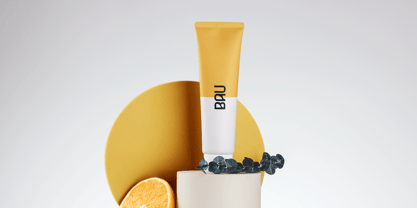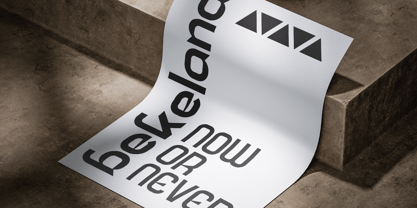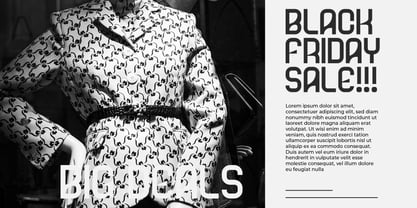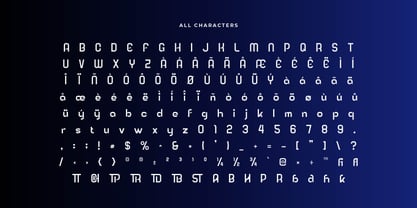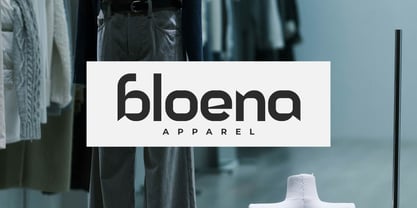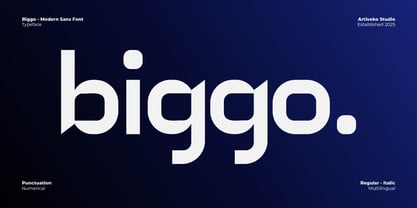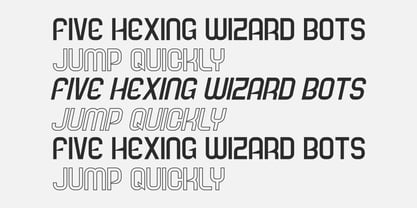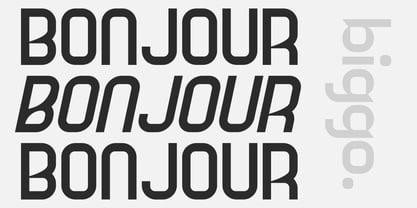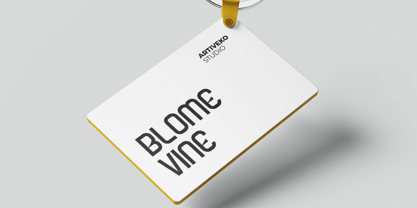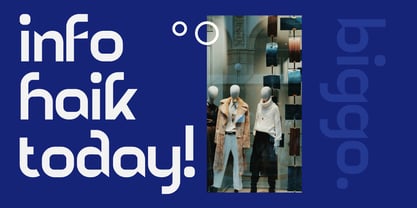
Biggo
por Artiveko
La familia tipográfica Biggo fue diseñada por Iwan Alwan y publicada por Artiveko. Biggo contiene 2 estilos y opciones de paquete familiar. Más información sobre esta familia
Biggo is a bold modern sans serif font featuring strong, clean letterforms that exude confidence and versatility. Perfect for branding, headlines, posters, and digital design, Biggo delivers a sleek and contemporary aesthetic with a professional touch. With multilingual support, ligatures, and alternates, Biggo is designed for clarity and impact, making it an ideal choice for projects that demand a modern and powerful typeface.